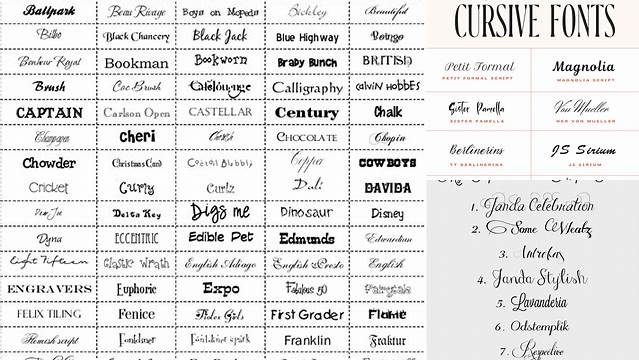
Elegant Cursive Fonts In Microsoft Word: A Comprehensive List
Hey guys! Ever wanted to add a touch of elegance and sophistication to your documents? Well, one of the easiest ways to do that is by using cursive fonts in Microsoft Word. Cursive fonts can make your invitations, letters, and even reports look more stylish and personalized. But with so many fonts available, how do you choose the right one? Don’t worry, we’ve got you covered! This guide will walk you through a comprehensive list of cursive fonts available in Microsoft Word, helping you find the perfect fit for your needs. Let's dive in and explore the beautiful world of cursive fonts!
1. Understanding Cursive Fonts in Microsoft Word
When we talk about Microsoft Word cursive fonts, we're essentially referring to fonts that mimic the flowing, connected strokes of handwriting. These fonts can range from traditional and formal scripts to more modern and playful styles. The beauty of using cursive fonts is that they can instantly add a personal touch to your documents. Imagine crafting a wedding invitation or a heartfelt letter – a well-chosen cursive font can make all the difference. But before we jump into specific fonts, it's essential to understand how to access and use them effectively within Microsoft Word. You can find a plethora of cursive fonts in Microsoft Word list and even download additional ones to personalize your documents.
Using cursive fonts effectively involves more than just selecting one from the dropdown menu. You need to consider the context of your document, the overall design, and the readability of the font. Overusing cursive fonts can make your text difficult to read, so it's crucial to use them sparingly and strategically. For example, cursive fonts are great for headings, titles, or short quotes, but they might not be the best choice for large blocks of text. Think about how the best Microsoft Word cursive fonts can enhance your document without overwhelming it. Remember, the goal is to add elegance and style, not to sacrifice clarity. So, let’s explore some fantastic cursive fonts and learn how to make the most of them in your Word documents!
2. Exploring the Default Cursive Fonts in MS Word
Microsoft Word comes pre-loaded with a variety of cursive fonts, which means you don't always need to hunt for external downloads. These default cursive fonts in MS Word can be a great starting point for many projects. Among the most popular options is Brush Script MT, a classic choice known for its flowing, elegant strokes. It's a versatile font that works well for invitations, certificates, and headings. Another reliable option is Bradley Hand ITC, which offers a more casual and handwritten feel. This font is perfect for adding a personal touch to letters or informal documents.
When exploring the default list of cursive fonts in Microsoft Word, you'll also find other gems like Script MT Bold and Kunstler Script. Script MT Bold is a bolder version of Brush Script MT, making it stand out more prominently. Kunstler Script, on the other hand, is a bit more ornate and decorative, ideal for special occasions. To access these fonts, simply open Microsoft Word, click on the font dropdown menu, and scroll through the list. You'll find them alphabetically along with the other font options. Take some time to experiment with these basic cursive fonts Microsoft Word provides, and you'll likely discover a few favorites. Don't underestimate the power of these built-in fonts – they can be just as effective as any downloaded option if used correctly. So, before you go searching for new fonts, give these defaults a try. You might be surprised at what you find!
3. Brush Script MT: A Classic Cursive Choice
Brush Script MT is a timeless classic when it comes to Microsoft Word cursive fonts. Its elegant, flowing strokes evoke a sense of traditional handwriting, making it a go-to choice for many users. This font is particularly well-suited for formal invitations, certificates, and other documents where you want to convey a sense of sophistication. The loops and curves in Brush Script MT give it a distinct personality, setting it apart from more generic fonts. Its versatility also means it can be used in a variety of contexts, from personal letters to business presentations.
One of the reasons Brush Script MT remains a favorite among popular cursive fonts for Microsoft Word users is its readability. Despite its intricate design, the font is generally easy to read, especially in larger sizes. This makes it an excellent option for headings and titles. However, it's important to use it sparingly in body text, as large blocks of Brush Script MT can become overwhelming. To make the most of Brush Script MT, consider pairing it with a simpler sans-serif font for body text. This creates a nice contrast and ensures that your document remains legible. So, if you're looking for a traditional Microsoft Word cursive font that's both elegant and readable, Brush Script MT is definitely worth considering. It’s a true classic that can add a touch of class to any project.
4. Bradley Hand ITC: For a Handwritten Feel
If you're aiming for a more relaxed and personal touch in your documents, Bradley Hand ITC is an excellent choice among Microsoft Word cursive fonts. This font closely mimics natural handwriting, giving your text a friendly and approachable vibe. Unlike the more formal Brush Script MT, Bradley Hand ITC has a casual, almost whimsical quality that makes it perfect for informal letters, notes, and creative projects. Imagine using it for thank-you cards, scrapbook pages, or even social media graphics – it adds an instant dose of personality.
The charm of Bradley Hand ITC lies in its slightly irregular strokes and letterforms, which make it look genuinely handwritten. This handwritten cursive font Microsoft Word offers a refreshing alternative to more polished and perfect scripts. It's a great way to convey warmth and sincerity in your writing. However, like other cursive fonts, it's best used sparingly. While it's fantastic for short notes and headings, large blocks of text in Bradley Hand ITC can be challenging to read. When using this font, think about the overall tone you want to create. If you're aiming for a casual and personal feel, Bradley Hand ITC is a fantastic option. It's one of those best cursive fonts in Microsoft Word for projects where authenticity and personality are key.
5. Script MT Bold: Making a Statement
Script MT Bold is a standout choice when you need a Microsoft Word cursive font that makes a statement. As the bolder version of Script MT, this font commands attention with its thick, flowing strokes. It’s perfect for headings, titles, and any text you want to emphasize. Imagine using Script MT Bold for invitations, posters, or even business cards – it’s sure to catch the eye. The bold weight of this font adds a touch of drama and sophistication, making it a versatile option for various design projects.